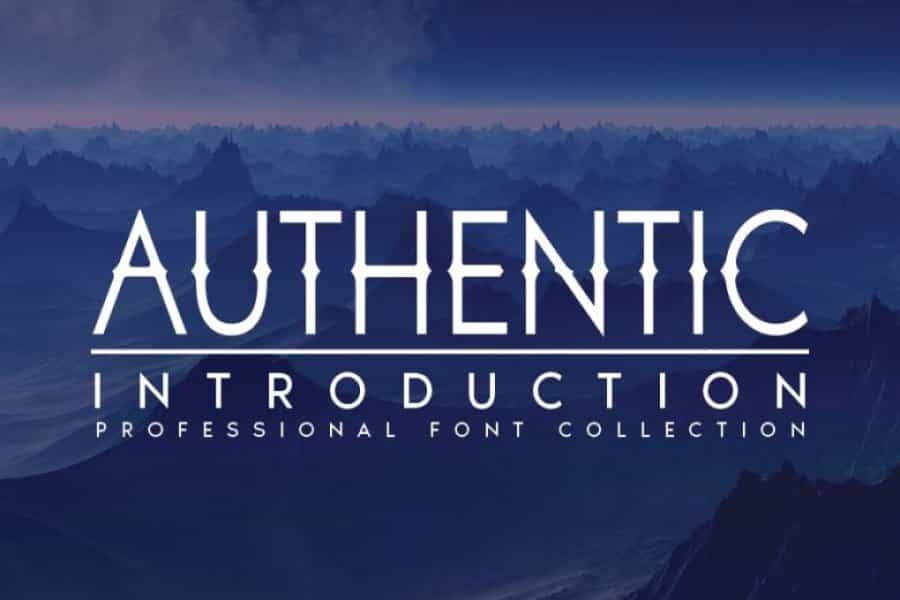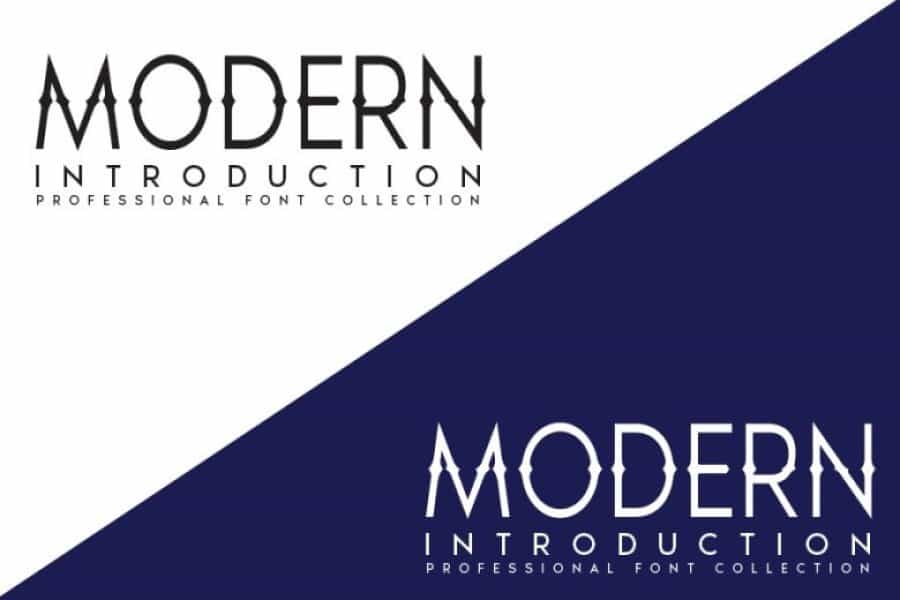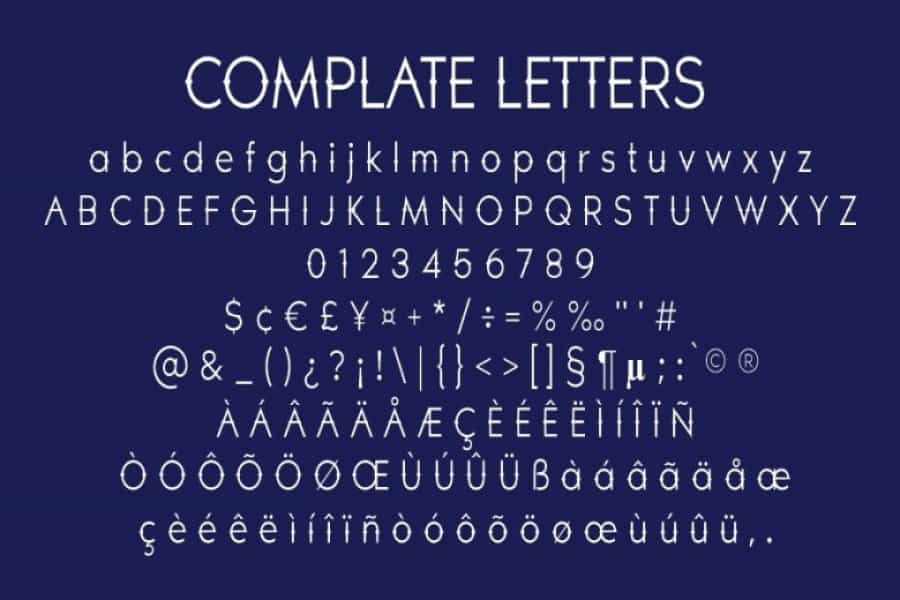
Discover Authentic Sans Serif Font, part of the Sans Serif collection—a versatile and unique font perfect for adding a personal touch to your projects. Download it for free and enjoy crafting designs with style, from invitations to social media posts. This font is available exclusively for personal use, giving you the freedom to create without limits. Unlock your creativity with Authentic Sans Serif Font today!
Authentic is a sleek and contemporary sans serif font designed to fit seamlessly into an array of designs, so why not include it in your plans for creative inspiration and watch how it stands out!?